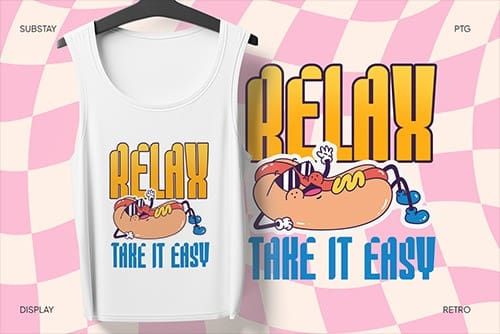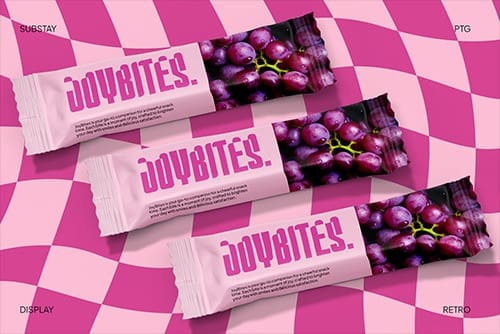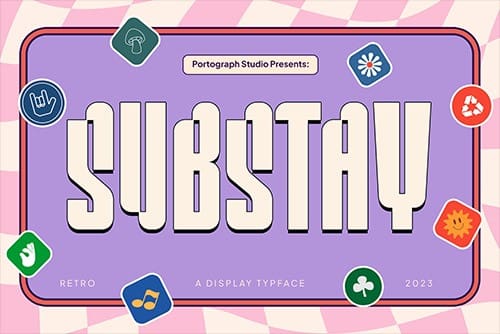
Ptg Substay Font
Ptg Substay Font,this typeface has a unique and attractive appearance. PTGSUBSTAY looks great when combined with solid character fonts.
For branding projects, logos, wedding designs, social media posts, advertisements, product packaging, product designs, labels, photography, watermarks, invitations, stationery, and anything requiring handwritten taste, PTGSUBSTAY is perfect.